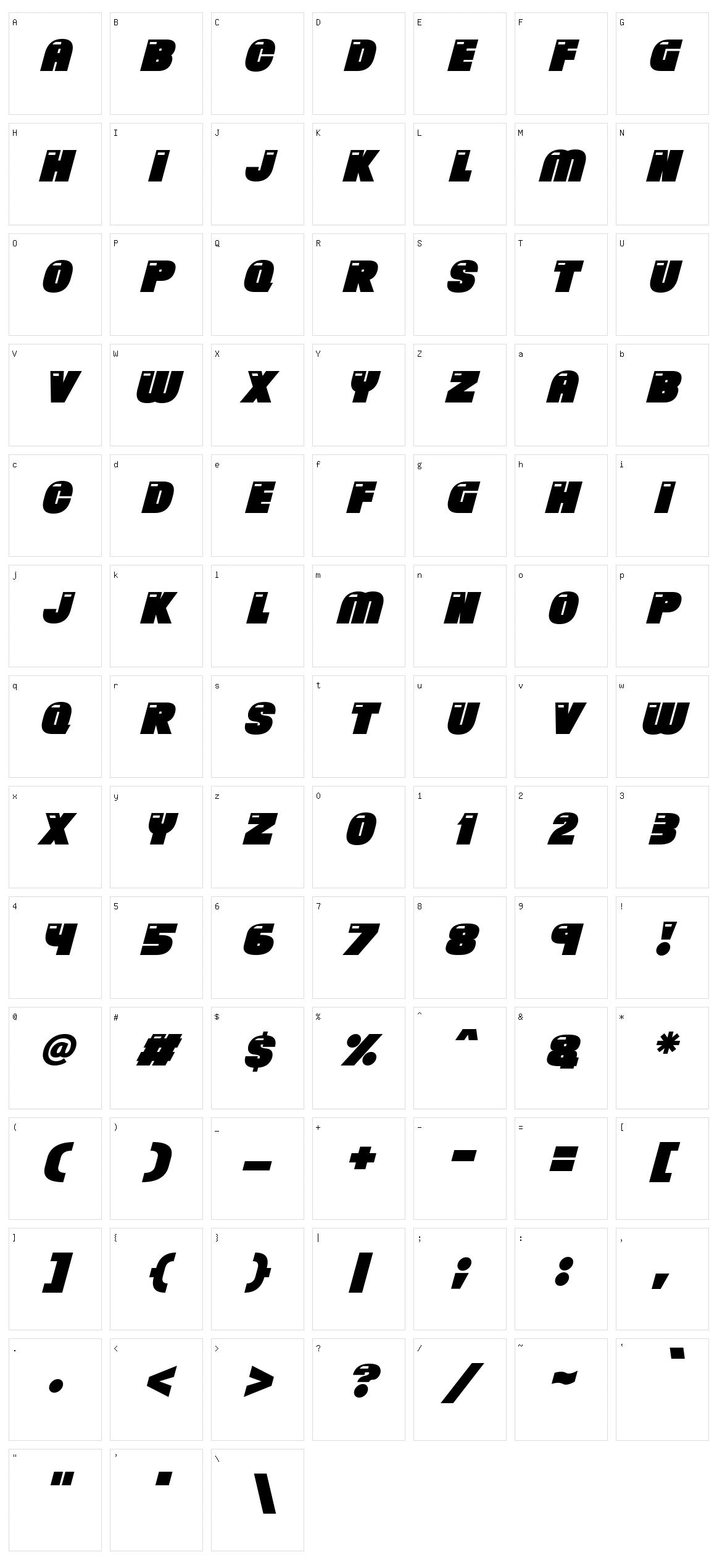
The free font Brand New Retro is carefully designed by Hawtpixel, showcasing a thoughtful balance of creativity and usability and falls under the Groovy font style. When you download the ZIP file, it contains only 65.37 KB of font files, making it lightweight and quick to download. Please review the license details below to understand permitted usage and distribution rights. If license information is not available, we recommend using this font for personal projects only or contacting the author directly for commercial usage permissions.